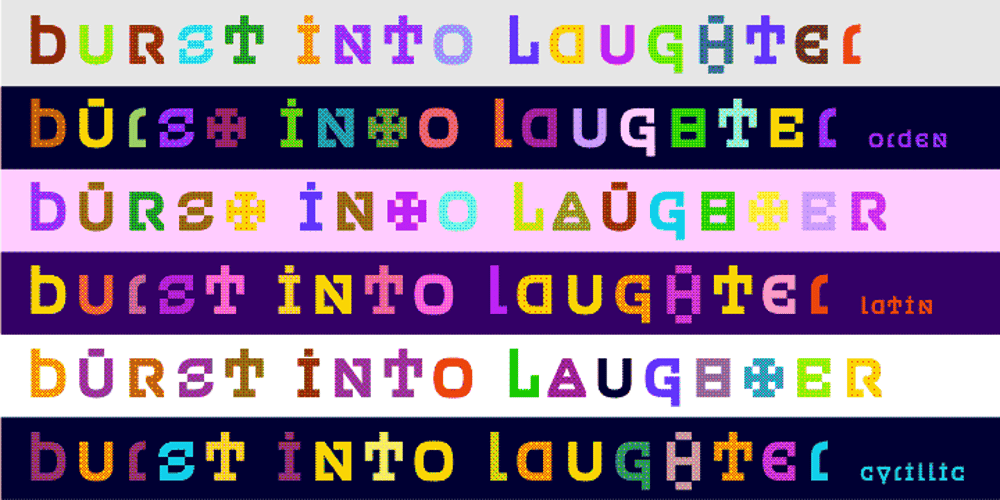
Orden
Orden Font Family was designed by Oleg Karpinsky and published by ParaType. Orden contains 1 styles and family package options. PT Orden™ was designed by Oleg Karpinsky in 2000-2001 and licensed by ParaType. Orden is a genuine Cyrillic typeface, it contains antique Cyrillic letter forms such as d, z, N with a diagonal stroke, symmetrical Y ,× and Ù, rare in modern typography. Another specialties: one alphabet and old style figures. Lower case consists of upper case letters except for some alternative variants of the capitals. For use in advertising and display typography.